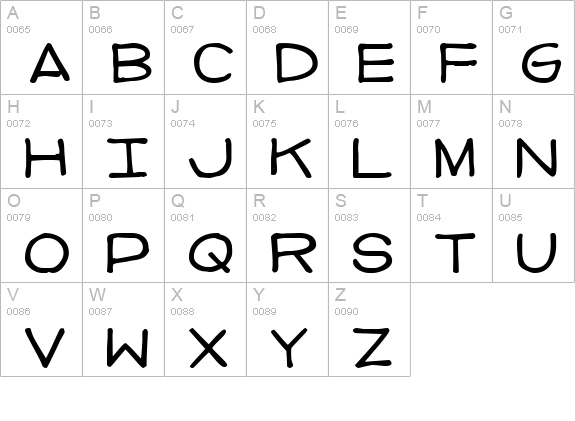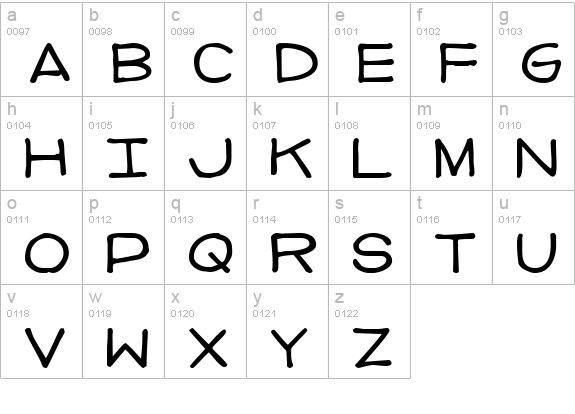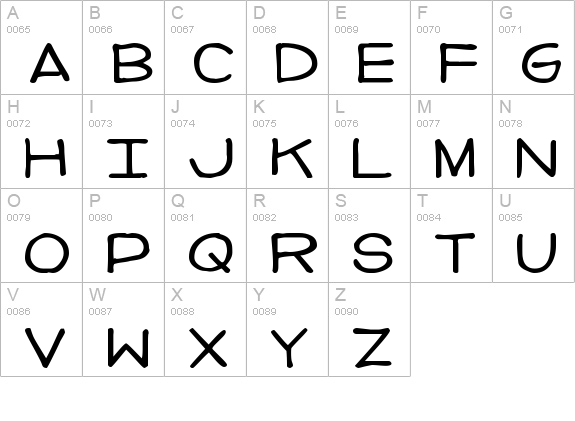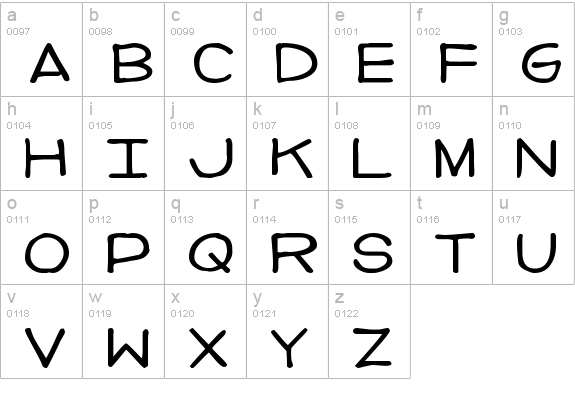
Imperfect font Font Details
Imperfect Font is a stunning typeface that adds a touch of authenticity and character to any design project. With its imperfectly hand-drawn letterforms, this font exudes a sense of organic beauty and uniqueness. Each letter is beautifully flawed, giving the text a charming and handcrafted feel. Imperfect Font is perfect for a wide range of design purposes, including logos, branding, packaging, posters, and more. Its imperfect nature makes it ideal for projects that aim to convey a sense of hand-drawn artistry, whether it be a trendy cafe logo or a vintage-inspired poster. What's even better is that Imperfect Font is completely free! Yes, you heard that right. This incredible font is freely available to download at FontsMarket.com. You can easily enhance your designs without spending a dime. With just a few clicks, you can add a touch of imperfection and uniqueness to your projects. So why wait? Download Imperfect Font today and let your creativity flow freely. Stand out from the crowd and create designs that are truly one-of-a-kind. Don't miss out on this amazing opportunity to enhance your designs with a standout font. Get Imperfect Font for free at FontsMarket.com and elevate your design game to new heights.